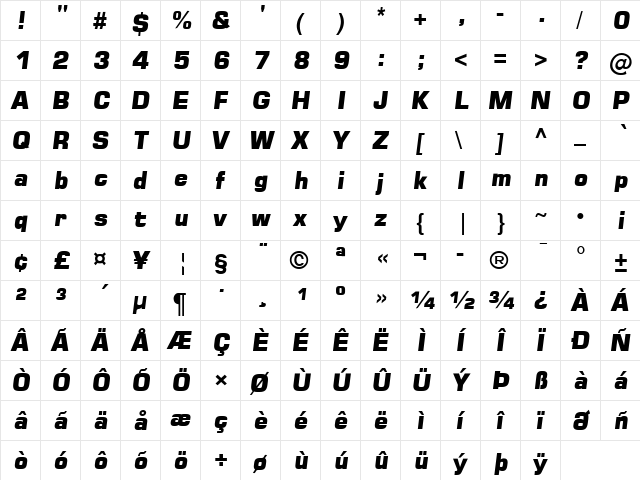
Square 721 Blk Italic
Design Context for Square 721 Blk Typeface
Square 721 Blk takes a measured approach to typography — its balanced proportions and neutral character make it a reliable workhorse for both digital and print work. The dynamic lean of this cut emphasises speed and emphasis in any layout.
Pro Tip: Use Square 721 Blk for emphasis, pull quotes, and subheadings where its slanted energy can add rhythm to the layout.